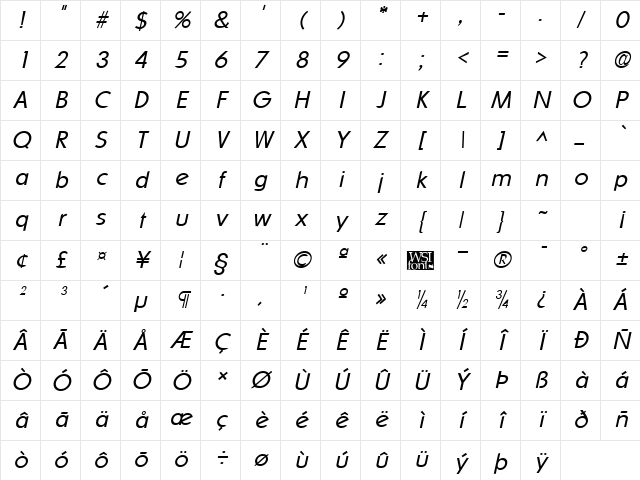
SharnayLight Italic
SharnayLight Family
Design Context for SharnayLight
SharnayLight is a composed and adaptable typeface that performs quietly and consistently across a wide range of design contexts. The slanted form adds forward momentum and visual energy. Its slender proportions lend an understated elegance to any composition.